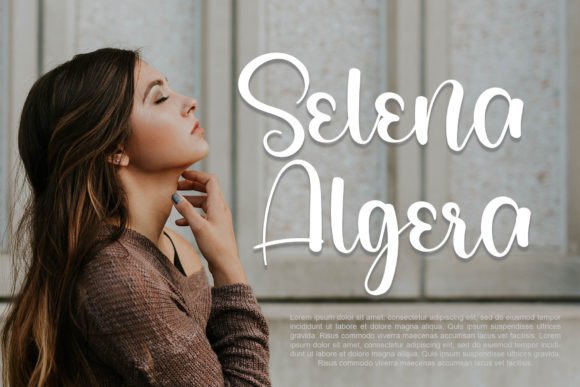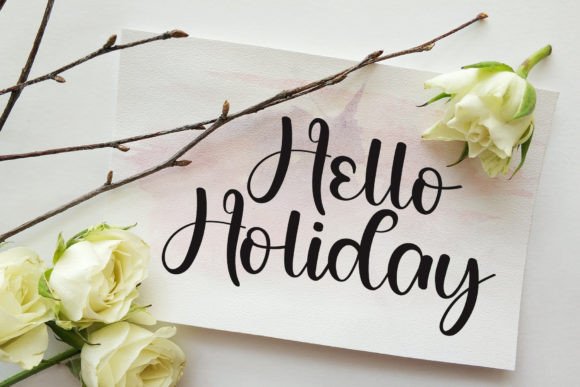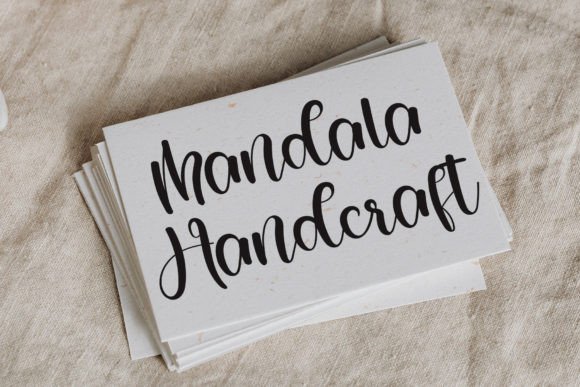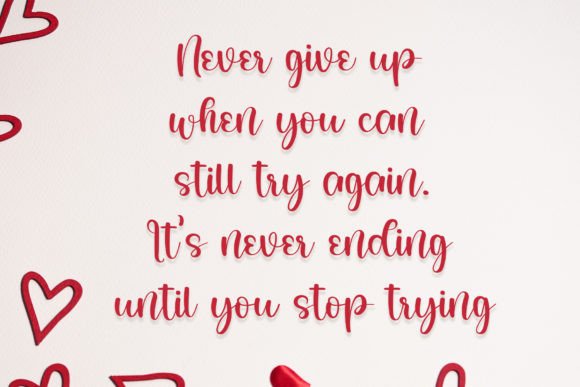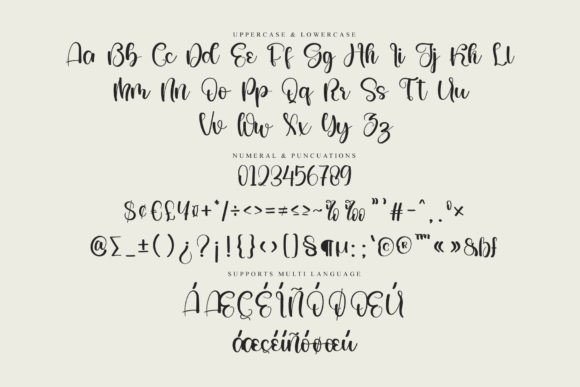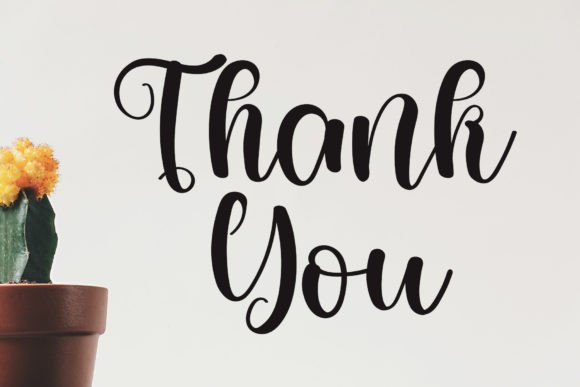
Bellinda Font: Elevate Your Designs with Timeless Elegance
In the world of typography, few fonts manage to capture the essence of classic calligraphy while still exuding a contemporary vibe. Bellinda Font is one such gem that effortlessly blends traditional elegance with modern flair, making it a must-have for designers and crafters alike. In this article, we’ll delve into the intricacies of Bellinda Font, exploring its features, applications, and the unique charm it brings to any project.
The Inspiration Behind Bellinda
Bellinda Font draws its inspiration from timeless classic calligraphy, a style that has been revered for centuries for its beauty and sophistication. The creators of Bellinda took the best elements of traditional calligraphy—its fluidity, elegance, and precision—and infused them with a contemporary atmosphere, resulting in a font that is both stylish and versatile.
Key Features of Bellinda Font
• Contemporary yet Classic: Bellinda strikes the perfect balance between modern design and classic calligraphy. Its letters are crafted with impeccable form, giving it a refined look that suits a wide range of projects.
• Balanced and Varied: The font boasts a balanced design with varied letterforms, ensuring that your text remains engaging and visually appealing. This variability makes Bellinda highly adaptable, from headings and titles to body text.
• Handwritten with Precision: Despite being a handwritten font, Bellinda offers a level of precision and consistency that is hard to find in more casual scripts. This precision makes it suitable for professional projects without losing the personal touch.
• Impeccable Form: Each letter in Bellinda is designed with meticulous attention to detail, ensuring that the font has a polished and sophisticated appearance.
Applications of Bellinda Font
Bellinda’s versatility makes it an excellent choice for a variety of design projects. Here are some of the areas where Bellinda truly shines:
• Branding and Logos: The elegant and modern design of Bellinda makes it perfect for branding and logo creation. It can help your brand stand out with a sophisticated and memorable visual identity.
• Stationery and Invitations: Whether you’re designing wedding invitations, business cards, or letterheads, Bellinda adds a touch of class and refinement that is sure to impress.
• Packaging: For product packaging, Bellinda’s stylish and contemporary look can enhance your product’s presentation, making it more appealing to potential customers.
• Digital Media: Bellinda is not just limited to print. Its clear and readable design makes it suitable for digital media, including websites, blogs, and social media graphics.
Why Choose Bellinda Font?
In a sea of fonts, Bellinda stands out for several reasons:
• Unique Aesthetic: Bellinda offers a unique blend of classic and modern elements, making your designs instantly recognizable.
• Versatility: Its adaptability to different contexts and mediums makes Bellinda a practical choice for a wide range of projects.
• Quality and Precision: The attention to detail in Bellinda’s design ensures that your projects look professional and polished.
Bellinda Font is more than just a typeface; it’s a design statement. With its roots in classic calligraphy and its eye towards contemporary design, Bellinda offers the best of both worlds. Whether you’re a designer looking to elevate your projects or a crafter seeking the perfect font for your handmade goods, Bellinda is sure to meet your needs. Its elegance, versatility, and impeccable form make it a valuable addition to any design toolkit. So, if you’re looking to add a touch of timeless elegance to your work, look no further than Bellinda Font.